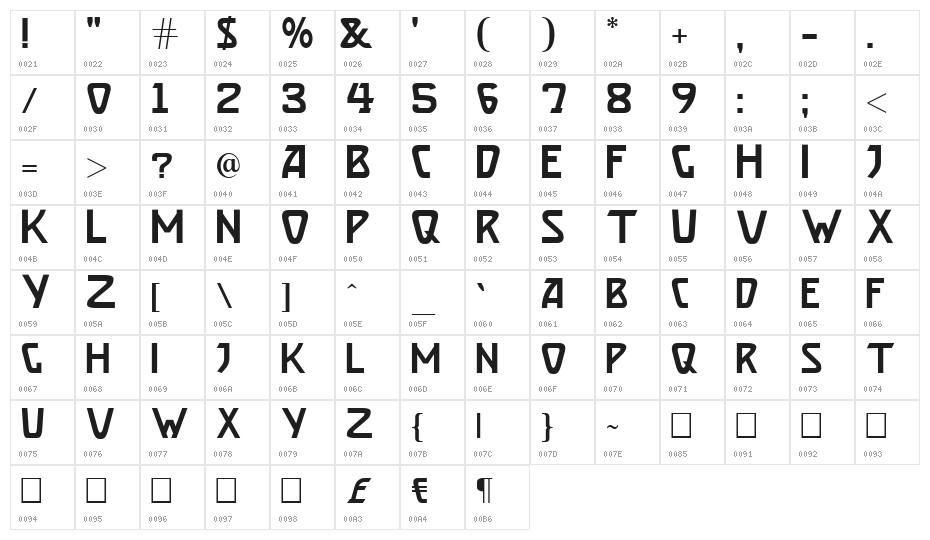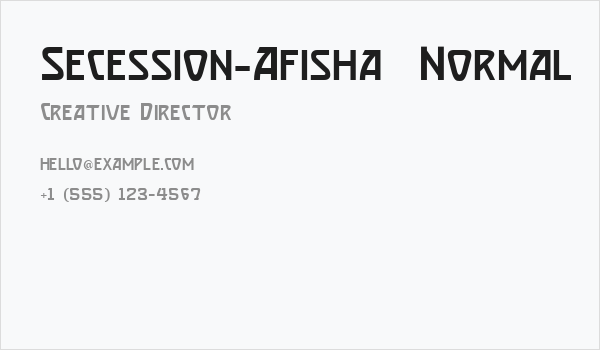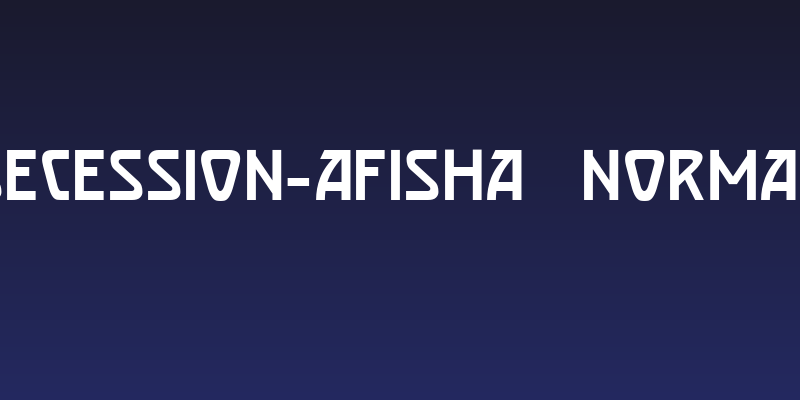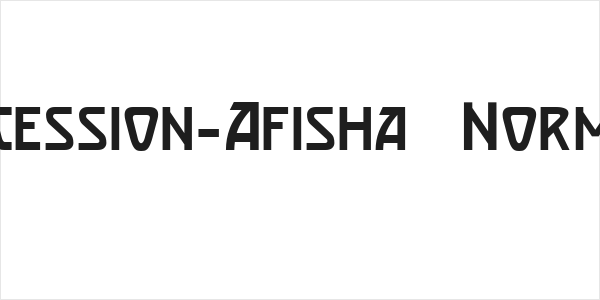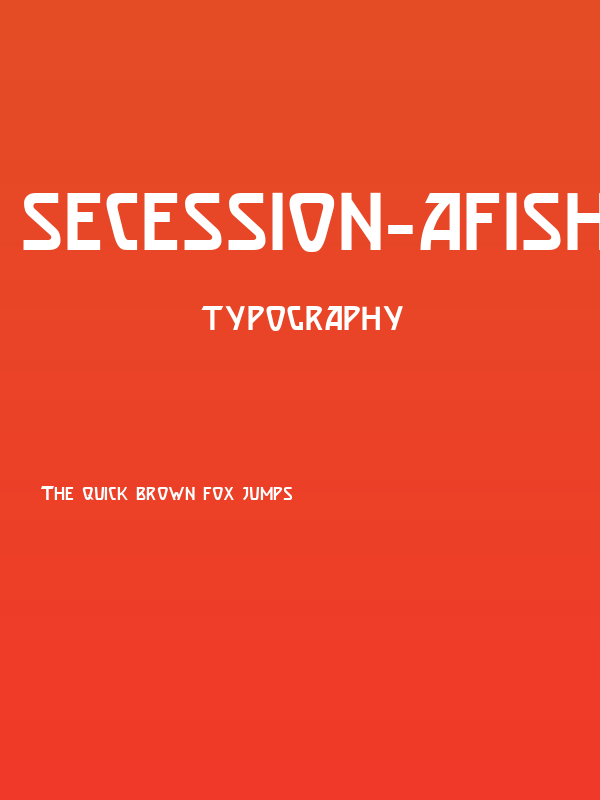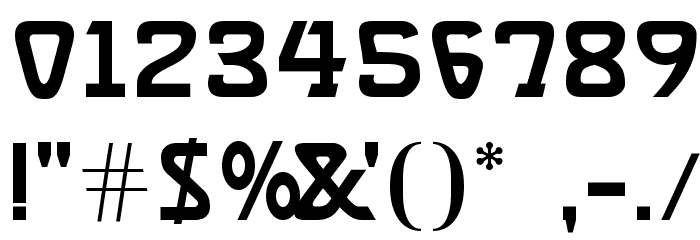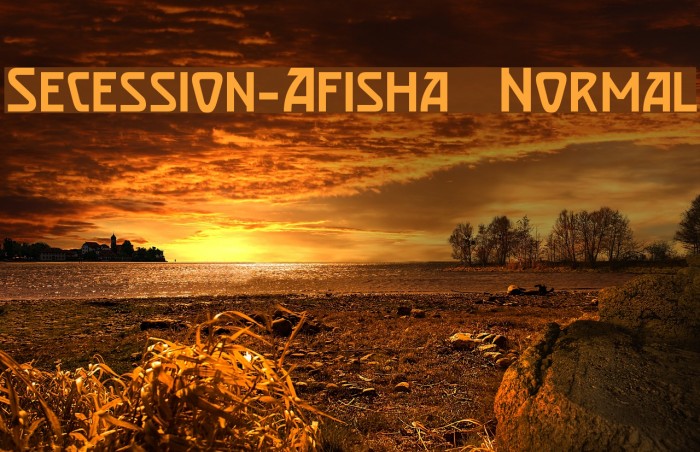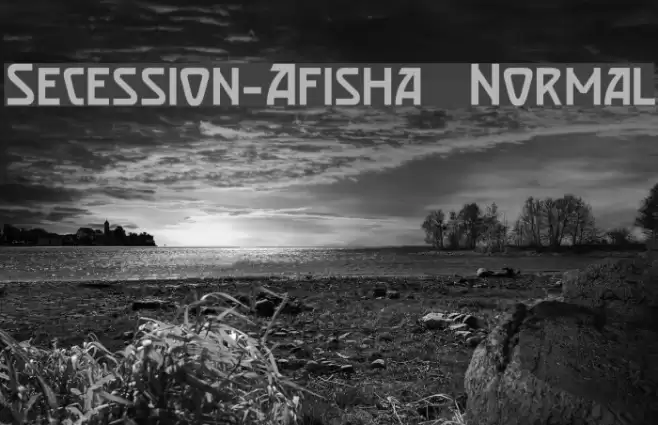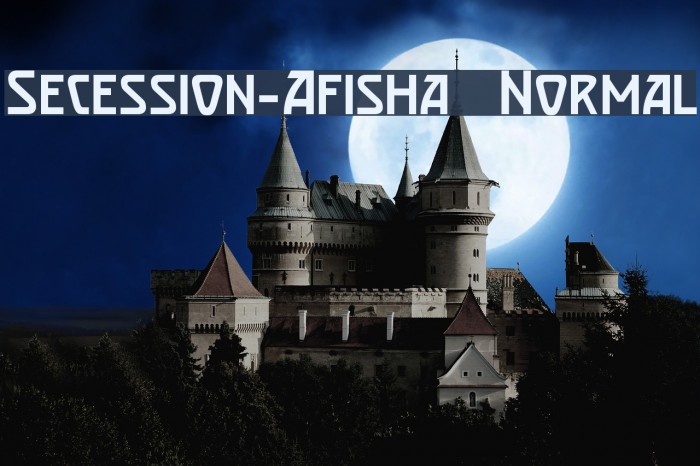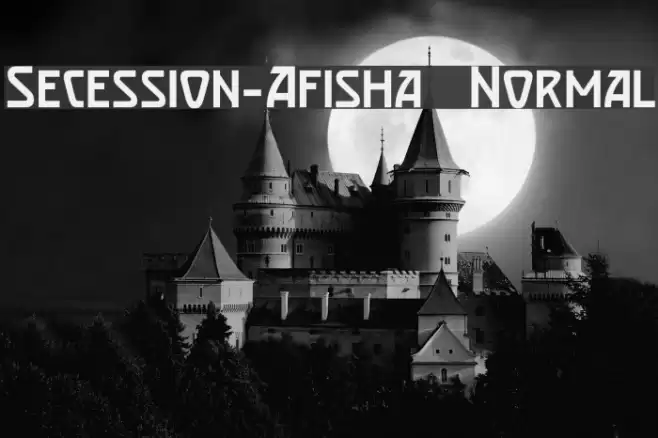
Secession-Afisha Normal Font
Secession-Afisha Normal Description
This font features a bold and geometric design with a distinctive modern flair. The uppercase letters are characterized by sharp angles and clean lines, giving them a futuristic and dynamic appearance. The lowercase letters maintain a similar style, ensuring consistency across text. Numbers are designed with the same geometric precision, making them highly legible. Special characters are crafted to match the overall aesthetic, providing a cohesive look. The font's boldness and unique style make it suitable for attention-grabbing headlines and impactful designs.